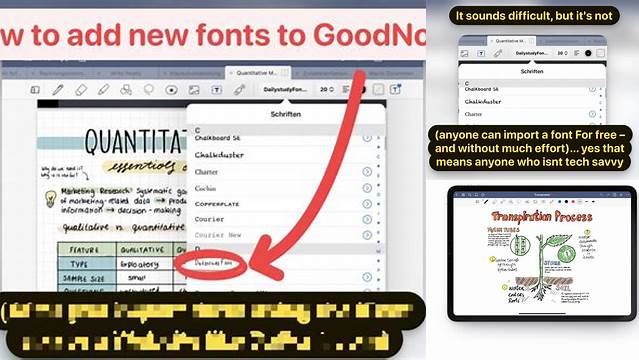
Add Fonts To GoodNotes Windows: A Step-by-Step Guide
Hey guys! Want to make your GoodNotes notes on Windows look even more amazing? One of the best ways to personalize your notes and make them truly yours is by using custom fonts. Fonts can completely change the vibe of your notes, whether you're going for a professional look, a fun and playful style, or something totally unique. In this guide, we'll walk you through everything you need to know about how to get fonts on GoodNotes for Windows. We’ll cover finding, installing, and using fonts, so you can take your note-taking game to the next level. Adding custom fonts to GoodNotes on Windows might seem a bit tricky at first, but trust me, it's totally doable! This guide is designed to make the process super easy and straightforward. We'll break down each step, so even if you're not a tech whiz, you'll be able to follow along. Why stick with the same old fonts when you can have a whole library of cool and interesting typefaces at your fingertips? Think about it: you can use elegant script fonts for headings, clean sans-serif fonts for body text, and fun display fonts for highlighting important points. The possibilities are endless! Plus, using different fonts can help you organize your notes more effectively. You can use different fonts for different sections, subheadings, or types of information. This not only makes your notes look better but also makes them easier to read and navigate. Let’s dive in and explore the world of custom fonts in GoodNotes on Windows. By the end of this guide, you'll be a font-installing pro, ready to make your notes stand out from the crowd. So, grab your Windows device, fire up GoodNotes, and let’s get started!
Why Use Custom Fonts in GoodNotes?
So, why should you even bother with custom fonts in GoodNotes? Well, there are a bunch of awesome reasons! First off, custom fonts let you express your personal style. Think of your notes as a canvas – you wouldn't want to paint with just one color, right? Different fonts can convey different moods and tones, so you can choose fonts that reflect your personality or the subject matter of your notes. For example, a handwritten-style font might be perfect for personal journaling, while a clean, modern font could be ideal for professional meeting notes. Beyond just aesthetics, fonts can also improve readability. Ever tried reading a long document in a font that’s hard on the eyes? It's not fun! Choosing the right font can make your notes much easier to read, especially if you're dealing with large amounts of text. This is super important for studying, note-taking in lectures, or any situation where you need to quickly absorb information. Plus, the ability to use different fonts can help you create a visual hierarchy in your notes. You can use bold, attention-grabbing fonts for headings, and simpler fonts for the body text. This makes it easier to scan your notes and quickly find the information you need. Custom fonts can also help you stay organized. Imagine color-coding your notes, but with fonts! You could use a specific font for definitions, another for examples, and yet another for key takeaways. This can make your notes not only look great but also be incredibly functional. Custom fonts are also a fantastic way to stand out. If you’re sharing your notes with classmates, colleagues, or even just on social media, unique fonts will make them pop. It shows that you’ve put extra thought and effort into your work, which can make a great impression. And let's be real, who doesn't love a good-looking set of notes? Using custom fonts can make the whole note-taking process more enjoyable. When your notes look beautiful, you're more likely to want to use them, review them, and stay organized. It's a simple change that can make a big difference in your productivity and overall experience with GoodNotes. By using custom fonts, you're not just making your notes look pretty; you're making them more effective, personal, and enjoyable to use. So, let’s jump into how you can actually get those awesome fonts into your GoodNotes on Windows!
Finding Fonts for GoodNotes on Windows
Okay, so you're convinced that custom fonts are the way to go – awesome! Now, let's talk about where to actually find these fonts. The internet is a treasure trove of amazing typefaces, and there are tons of resources out there where you can download fonts for free or purchase them. One of the most popular and reliable places to find fonts is Google Fonts. It’s a fantastic resource because all the fonts are free to use, even for commercial projects. Plus, they’re super easy to download and install. Google Fonts offers a huge variety of styles, from classic serif fonts to modern sans-serifs, and even some cool display fonts. You can browse by category, popularity, or even specific characteristics like thickness or slant. Another great option is DaFont. DaFont has a massive collection of fonts, and many of them are free for personal use. You'll find everything from quirky handwritten styles to bold, attention-grabbing fonts. Just be sure to check the license for each font, as some may only be free for personal use, while others can be used commercially. MyFonts is another excellent resource, especially if you're looking for high-quality, professional fonts. They have a huge selection of fonts from independent designers and foundries. While many of the fonts on MyFonts are paid, the quality is often worth the investment if you're serious about typography. For those who love a good deal, Creative Market is a fantastic place to check out. They often have bundles of fonts available at discounted prices. You can find some amazing deals on font families and font packs, which is a great way to build your font library without breaking the bank. FontSpace is another great site that offers thousands of free fonts. They have a user-friendly interface and a wide range of styles to choose from. Like DaFont, make sure to check the license for each font to ensure it fits your intended use. When you're browsing for fonts, think about the types of notes you'll be taking and the overall style you want to achieve. If you're taking notes in a professional setting, you might want to stick with clean, legible fonts. If you're creating more personal, creative notes, you can experiment with more decorative fonts. Don't be afraid to try out different fonts and see what works best for you. Once you've found a few fonts you like, download them to your computer. Most fonts come in a .TTF (TrueType Font) or .OTF (OpenType Font) format, which are both compatible with Windows. In the next section, we'll walk through how to install these fonts so you can start using them in GoodNotes. So, get ready to unleash your inner font enthusiast and find the perfect typefaces for your notes!
Alright, you've found some awesome fonts, downloaded them, and now it's time to get them onto your Windows system so you can use them in GoodNotes. Installing fonts on Windows is actually pretty straightforward, and once you've done it a couple of times, you'll be a pro! Let's walk through the steps. First, you'll want to locate the font files you downloaded. Fonts usually come in a .zip file, so you'll need to extract the contents first. Right-click on the .zip file and select "Extract All..." Choose a location to extract the files to – your Downloads folder or a new folder specifically for fonts works well. Once you've extracted the files, you'll see the font files themselves. These will typically be in .TTF (TrueType Font) or .OTF (OpenType Font) format. Both formats work great on Windows, so don't worry about which one you have. Now, there are a couple of ways to install the font. The easiest method is to simply double-click on the font file. This will open a preview window that shows you what the font looks like. In the top left corner of the preview window, you'll see an "Install" button. Click that button, and Windows will install the font for you. You'll need administrator privileges to install fonts, so if you're prompted for permission, click "Yes." Another way to install fonts is to use the Settings app. Open the Start menu and click on the gear icon to open Settings. Then, click on "Personalization" and then "Fonts." This will open the Fonts settings page, where you can see all the fonts currently installed on your system. To install a new font, simply drag and drop the font file (.TTF or .OTF) into the "Add fonts" box at the top of the page. Windows will automatically install the font for you. Once the font is installed, it should be available in any application that uses fonts, including GoodNotes. However, sometimes you might need to restart GoodNotes (or even your computer) for the new font to show up. This is especially true if GoodNotes was open during the installation process. So, if you don't see your new font right away, give GoodNotes a quick restart. That’s it! Your font is now installed and ready to use. You can repeat this process for as many fonts as you like. Building up a nice collection of fonts can really enhance your note-taking experience and make your notes stand out. In the next section, we'll cover how to actually use these newly installed fonts in GoodNotes. So, let’s move on and see how you can start creating beautiful, personalized notes with your new font library!
Using Fonts in GoodNotes on Windows
Okay, you've installed your fonts – great job! Now comes the fun part: actually using them in GoodNotes on Windows. Let's walk through how to access and use your new fonts to make your notes look amazing. First, open up GoodNotes on your Windows device. If you had it open during the font installation, you might want to restart it to make sure the new fonts show up in the font list. Create a new notebook or open an existing one where you want to use your custom fonts. Now, grab your text tool – that's the one that looks like a "T." Tap anywhere on the page where you want to add text, and a text box will appear. Type in your text, and you'll notice that it's probably using the default font. To change the font, you'll need to access the font menu. With the text box selected, look for the font selection dropdown in the toolbar. It's usually located near the font size and color options. Click on the dropdown, and you'll see a list of all the fonts installed on your system, including the ones you just installed. Scroll through the list until you find the font you want to use. You can preview what the font looks like by simply clicking on it. Once you've found the perfect font, click on it to apply it to your selected text. Boom! Your text is now in your chosen font. You can adjust the font size, color, and style (like bold, italic, or underline) using the other options in the toolbar. Experiment with different fonts for different purposes. You might want to use a bold, attention-grabbing font for headings, a clean and legible font for body text, and a script font for handwritten notes or emphasis. GoodNotes also allows you to save your favorite font styles, so you don’t have to keep selecting the same font and size every time. You can do this by creating a custom style. To create a custom style, format your text exactly how you want it (font, size, color, etc.), then tap the style menu in the toolbar. Tap “Save as New Style” and give your style a name. Now, whenever you want to use that style, you can just select it from the style menu, which saves you a ton of time. Using different fonts can also help you organize your notes more effectively. For example, you could use one font for definitions, another for examples, and a third for key takeaways. This makes it easier to quickly scan your notes and find the information you need. Don't be afraid to experiment and have fun with different fonts! Try out different combinations and see what works best for you. The more you play around with fonts, the better you'll get at choosing the right fonts for different situations. So, go ahead, unleash your inner font artist, and make your GoodNotes notes on Windows look amazing! In the next section, we'll cover some troubleshooting tips in case you run into any issues with your fonts in GoodNotes.
Troubleshooting Font Issues in GoodNotes
Okay, so you've followed the steps, installed your fonts, and tried to use them in GoodNotes, but something's not quite right? Don't worry, it happens! Let's go over some common issues and how to troubleshoot them so you can get your fonts working perfectly. One of the most common issues is that the font doesn't appear in GoodNotes after you've installed it. If this happens, the first thing to try is restarting GoodNotes. Sometimes, the app just needs a little refresh to recognize the new fonts. Close GoodNotes completely and then reopen it. If that doesn't work, try restarting your entire computer. This can help ensure that the operating system has fully registered the new font. Another thing to check is whether the font is actually installed correctly on your system. Go to your Windows Settings, click on "Personalization," and then "Fonts." You should see a list of all the fonts installed on your computer. If your font isn't in this list, it means it wasn't installed properly. Try reinstalling the font by following the steps we covered earlier. Sometimes, the font file might be corrupted, which can prevent it from installing correctly. If you suspect this is the case, try downloading the font again from the original source. Make sure you're downloading it from a reputable website to avoid any potential security issues. Another issue you might encounter is that the font appears in GoodNotes, but it doesn't look right. This could be due to a compatibility issue between the font and GoodNotes. Some fonts are simply better optimized for certain applications than others. If this happens, try using a different font. There are tons of great fonts out there, so you're sure to find one that works well. If you're using a particularly decorative or unusual font, it might not display correctly in all sizes or styles (like bold or italic). Try adjusting the font size or using a different style to see if that helps. Sometimes, a font might have issues with specific characters or symbols. If you notice that certain characters aren't displaying correctly, you might need to use a different font or find a workaround (like using a similar symbol from a different font). If you've tried all of these troubleshooting steps and you're still having issues, it might be worth contacting GoodNotes support. They might be able to provide more specific guidance or identify any underlying issues with the app. Don't get discouraged if you run into a few snags along the way. Troubleshooting is a normal part of the process, and with a little patience, you'll be able to get your fonts working perfectly in GoodNotes. Once you've got your fonts sorted out, you'll be able to create beautiful, personalized notes that you'll love using. So, keep at it, and happy note-taking!
So there you have it, guys! You're now equipped with all the knowledge you need to get fonts on GoodNotes for Windows. We've covered everything from finding and downloading fonts to installing them and using them in your notes. You've learned why custom fonts are so awesome, how they can enhance your note-taking experience, and how to troubleshoot common issues. Adding custom fonts to GoodNotes can really take your notes to the next level. It's a simple way to personalize your notes, make them more readable, and even help you stay organized. Whether you're a student, a professional, or just someone who loves to take notes, custom fonts can make a big difference. Remember, the key is to experiment and find fonts that you love and that work well for your needs. Don't be afraid to try out different styles and combinations. The more you play around with fonts, the better you'll get at choosing the right ones for different situations. Using different fonts can also help you create a visual hierarchy in your notes, making it easier to scan and find the information you need. You can use bold fonts for headings, simpler fonts for body text, and even different fonts for different sections or topics. And don't forget about custom styles! Saving your favorite font styles can save you a ton of time and ensure consistency across your notes. Once you've set up your favorite styles, you can quickly apply them to any text, without having to manually adjust the font, size, and color every time. If you run into any issues along the way, don't panic! Most font-related problems are easy to fix with a little troubleshooting. Remember to restart GoodNotes, check your font installation, and make sure you're using compatible fonts. And if all else fails, GoodNotes support is always there to help. So, go ahead and unleash your inner font artist! Start building your font library, experimenting with different styles, and creating beautiful, personalized notes that you'll love using. Happy note-taking, and may your fonts always be fabulous!